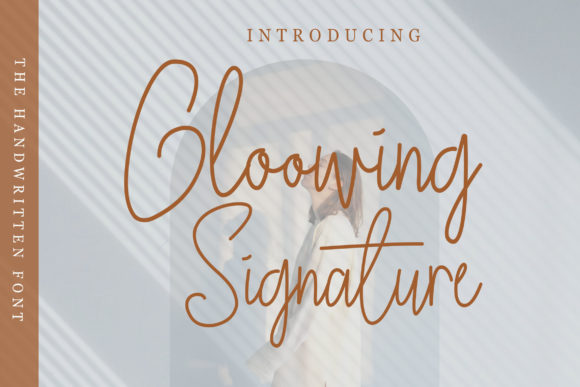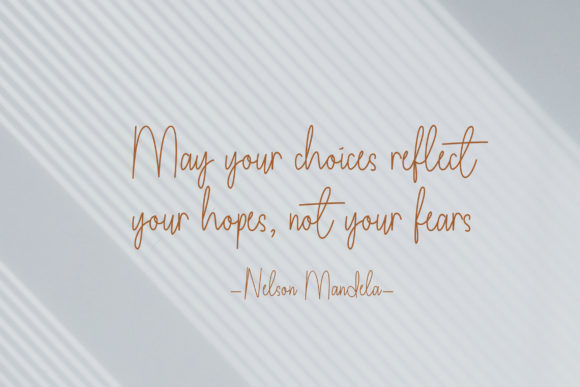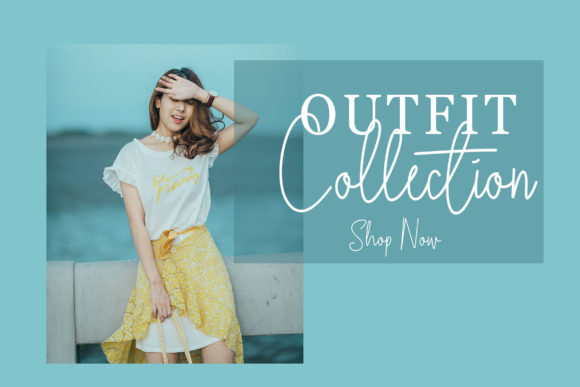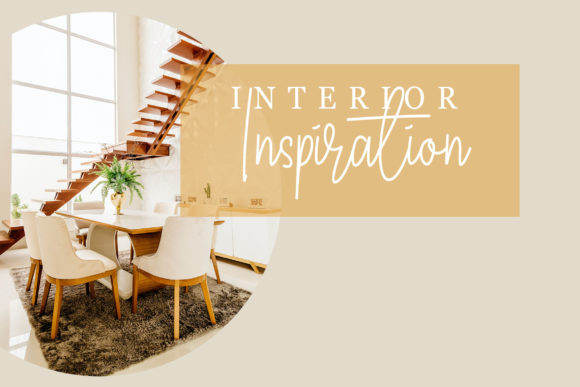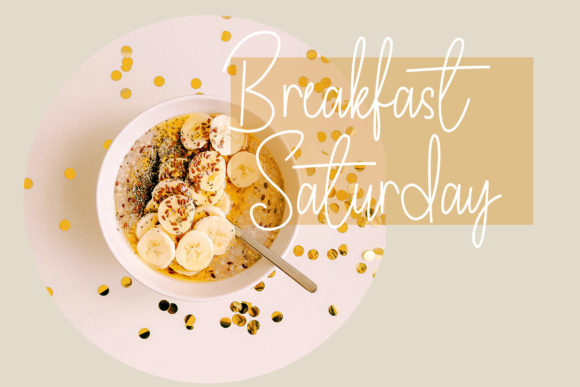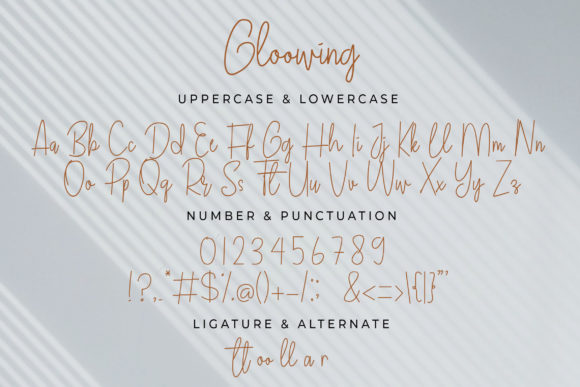
Gloowing Signature Font
About Gloowing Signature Font
Gloowing Signature is a chic, refined script font that emanates sophistication and elegance. Its stylish alternates and ligatures make this font the perfect match for any project.